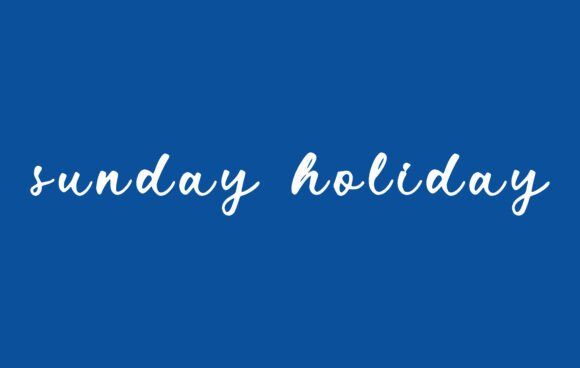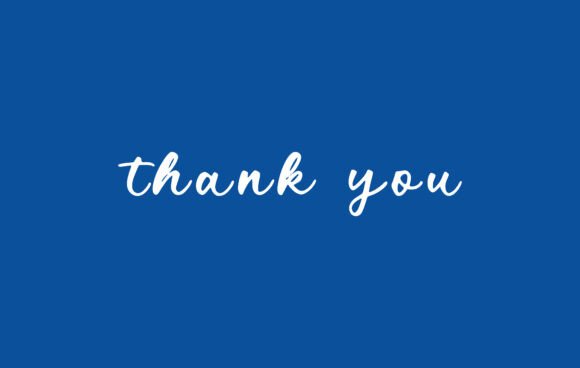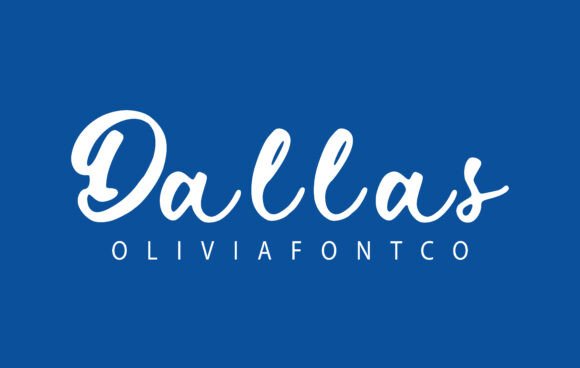
Dallas Font: Elevate Your Designs with a Romantic Handwritten Touch
Are you tired of using the same old fonts in your designs? Look no further than the Dallas Font, an authentic handwritten font with a romantic touch that’s sure to take your creative ideas to the next level. Expertly designed to be a true favorite among designers and crafters, this font is legible, versatile, and perfect for a wide range of applications.
What Makes Dallas Font So Special?
The Dallas Font is a unique and beautiful handwritten font that’s been crafted with love and care. Its romantic touch adds a touch of elegance and sophistication to any design, making it perfect for projects that require a personal and emotional connection. Whether you’re designing a wedding invitation, a social media post, or a magazine headline, this font is sure to make your work stand out.
Key Features of Dallas Font
- Authentic Handwritten Style: The Dallas Font is a genuine handwritten font that’s been designed to mimic the natural flow and imperfections of handwriting.
- Romantic Touch: This font has a romantic and elegant feel that’s perfect for projects that require a touch of sophistication.
- Legible and Readable: Despite its handwritten nature, the Dallas Font is highly legible and readable, making it perfect for use as both title and body text.
- Versatile: This font can be used for a wide range of applications, from magazine headlines and social media posts to branding, wedding invitations, and more.
The Dallas Font is a dream come true for designers and crafters who are looking for a unique and beautiful font to add to their arsenal. Whether you’re a professional designer or a hobbyist, this font is sure to inspire your creativity and help you to produce stunning work. Here are just a few ways you can use the Dallas Font:
- Magazine Headlines: Use the Dallas Font to create eye-catching headlines that grab attention and draw readers in.
- Social Media: Add a touch of elegance and sophistication to your social media posts with this beautiful font.
- Branding: Use the Dallas Font to create a unique and memorable brand identity that sets you apart from the competition.
- Wedding Invitations: This font is perfect for wedding invitations, save-the-date cards, and other wedding stationery.
- Crafting: The Dallas Font is also great for crafters who want to add a personal touch to their projects, such as scrapbooking, card making, and more.
Tips for Using Dallas Font
Here are a few tips for getting the most out of the Dallas Font:
- Use it as a Title Font: The Dallas Font is perfect for use as a title font, where its elegant and romantic feel can really shine.
- Mix it with Other Fonts: Don’t be afraid to mix the Dallas Font with other fonts to create a unique and interesting look.
- Experiment with Colors: The Dallas Font looks great in a variety of colors, so don’t be afraid to experiment and find the perfect hue for your project.
In conclusion, the Dallas Font is a beautiful and versatile handwritten font that’s perfect for designers and crafters who want to add a romantic touch to their work. With its authentic handwritten style, legible and readable design, and wide range of applications, this font is sure to become a favorite in your font collection. So why wait? Download the Dallas Font today and start elevating your designs to the next level!